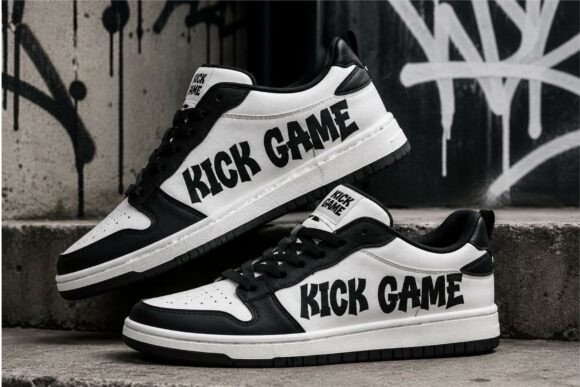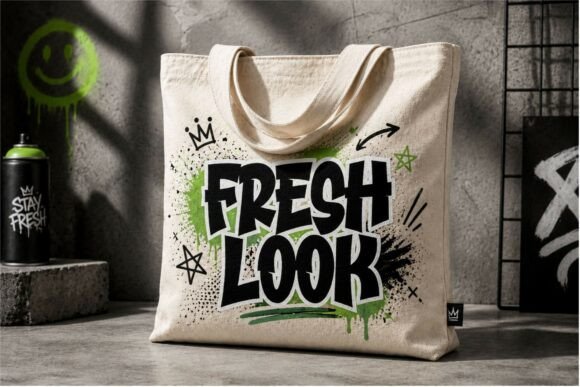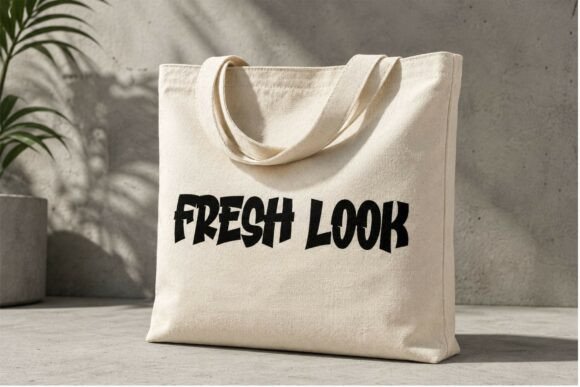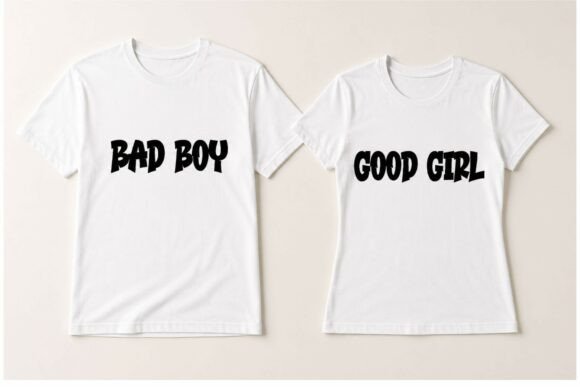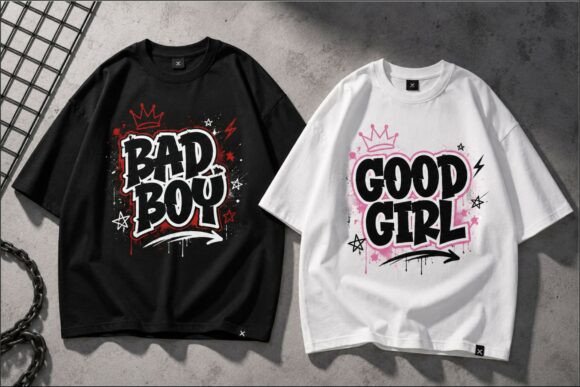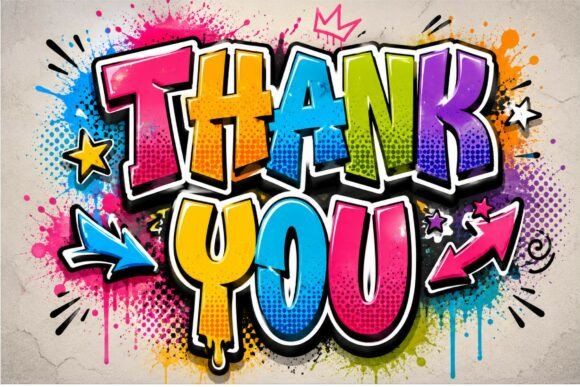
Unleash Your Creativity with Graffiti City Font
Are you a designer or crafter looking for a bold and expressive font to add a touch of urban attitude to your creative projects? Look no further than Graffiti City Font, a chunky street-style font that’s perfect for making a strong visual impact. In this article, we’ll dive into the features and benefits of Graffiti City, and explore how you can use it to take your designs to the next level.
What is Graffiti City Font?
Graffiti City is a bold and expressive graffiti display font that’s designed to bring energy, confidence, and a cool streetwear feel to your designs. With its chunky, playful shapes and sharp edges, this font is perfect for creating eye-catching posters, apparel, stickers, logos, packaging, social media graphics, album covers, gaming designs, and bold branding projects.
Key Features of Graffiti City Font
- Bold and Expressive: Graffiti City is a bold and expressive font that’s designed to make a statement. Its chunky, street-style look is perfect for creating designs that need to stand out from the crowd.
- Playful Shapes: The font features playful shapes and sharp edges that give it a fun and urban feel.
- Urban Attitude: Graffiti City has a cool, streetwear vibe that’s perfect for designers who want to add a touch of urban attitude to their designs.
- Versatile: This font is versatile and can be used for a wide range of design projects, from posters and apparel to logos and packaging.
Who is Graffiti City Font for?
Graffiti City is perfect for designers who want a loud, fun, and eye-catching font for modern creative work. Whether you’re a graphic designer, a crafter, or a DIY enthusiast, this font is ideal for anyone who wants to add a touch of urban attitude to their designs.
How to Use Graffiti City Font
Graffiti City is easy to use and can be incorporated into a wide range of design projects. Here are some ideas to get you started:
- Posters: Use Graffiti City to create eye-catching posters for events, concerts, or festivals.
- Apparel: Add a touch of urban attitude to your apparel designs with Graffiti City.
- Stickers: Create fun and colorful stickers with Graffiti City.
- Logos: Use Graffiti City to create bold and expressive logos for your brand or business.
- Packaging: Add a touch of personality to your packaging designs with Graffiti City.
- Social Media Graphics: Use Graffiti City to create eye-catching social media graphics that will help your brand stand out.
- Album Covers: Create bold and expressive album covers with Graffiti City.
- Gaming Designs: Use Graffiti City to create bold and eye-catching gaming designs.
- Branding Projects: Add a touch of urban attitude to your branding projects with Graffiti City.
Why Choose Graffiti City Font?
There are many fonts to choose from, but Graffiti City stands out from the crowd. Here are some reasons why:
- Unique: Graffiti City has a unique and distinctive look that’s sure to turn heads.
- High-Quality: This font is high-quality and designed to work perfectly in a wide range of design projects.
Graffiti City Font is a bold and expressive graffiti display font that’s perfect for designers who want to add a touch of urban attitude to their creative projects. With its chunky street-style look, playful shapes, and sharp edges, this font is sure to make a strong visual impact. Whether you’re a graphic designer, a crafter, or a DIY enthusiast, Graffiti City is a great choice for anyone who wants to create eye-catching designs that stand out from the crowd.